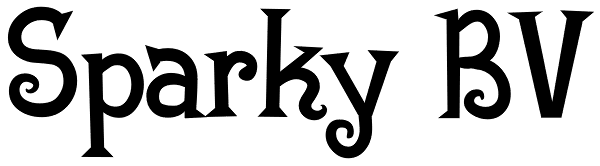
Sparky BV
Sparky is one of the most playful fonts I have created. I love the wacky energy this font has.The contrast of the serifs with the curly ends work really well. This font is a full extended character set!
Sparky BV Font